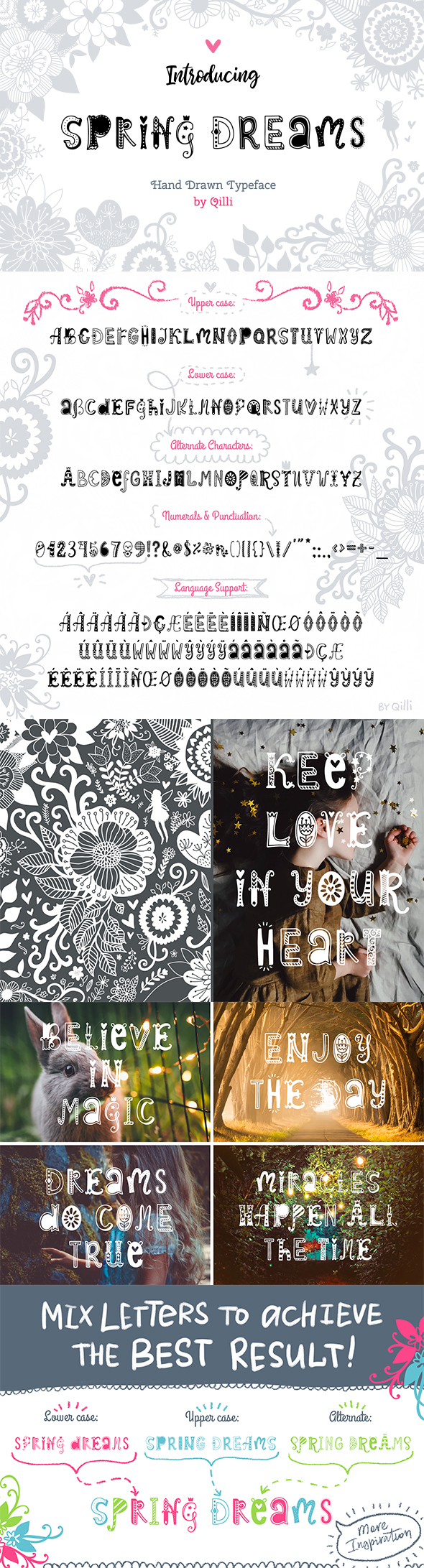
Spring Dreams Typeface – handwritten font for your projects! This hand drawn font is perfect for cards, prints, logos, wedding invitations, arrange illustration and decoration.